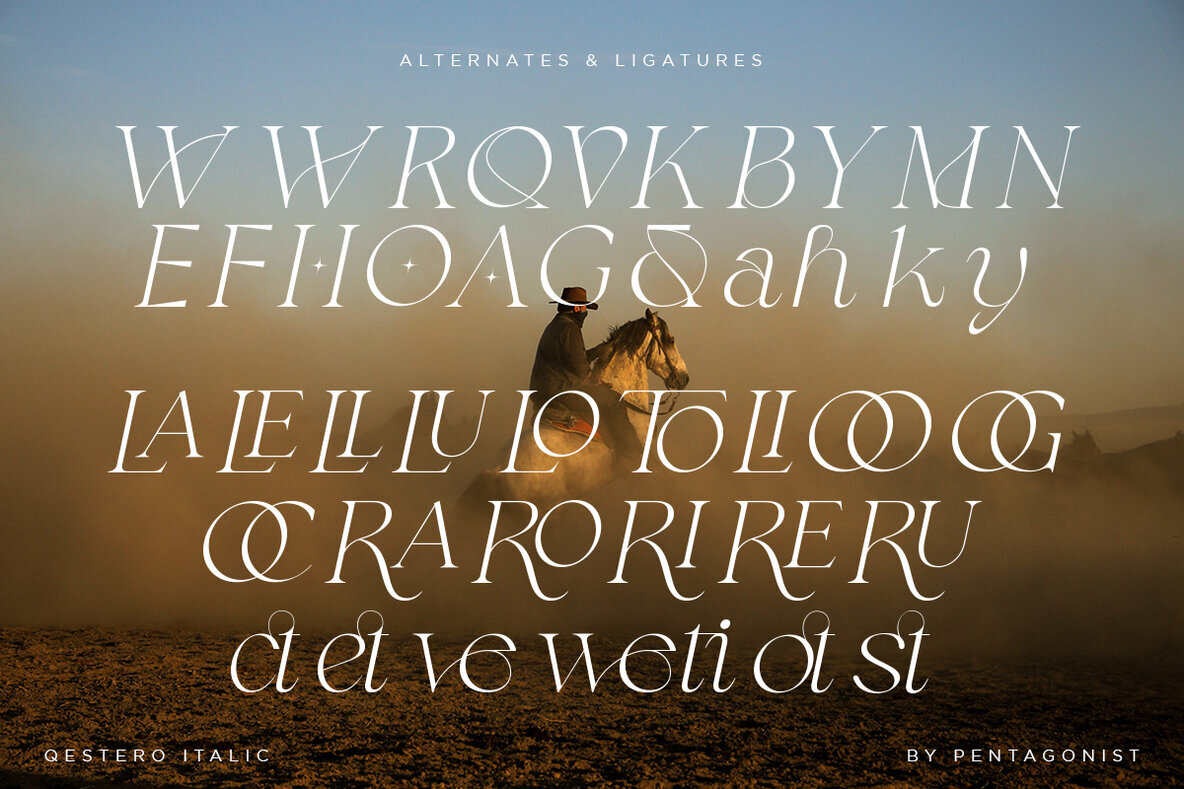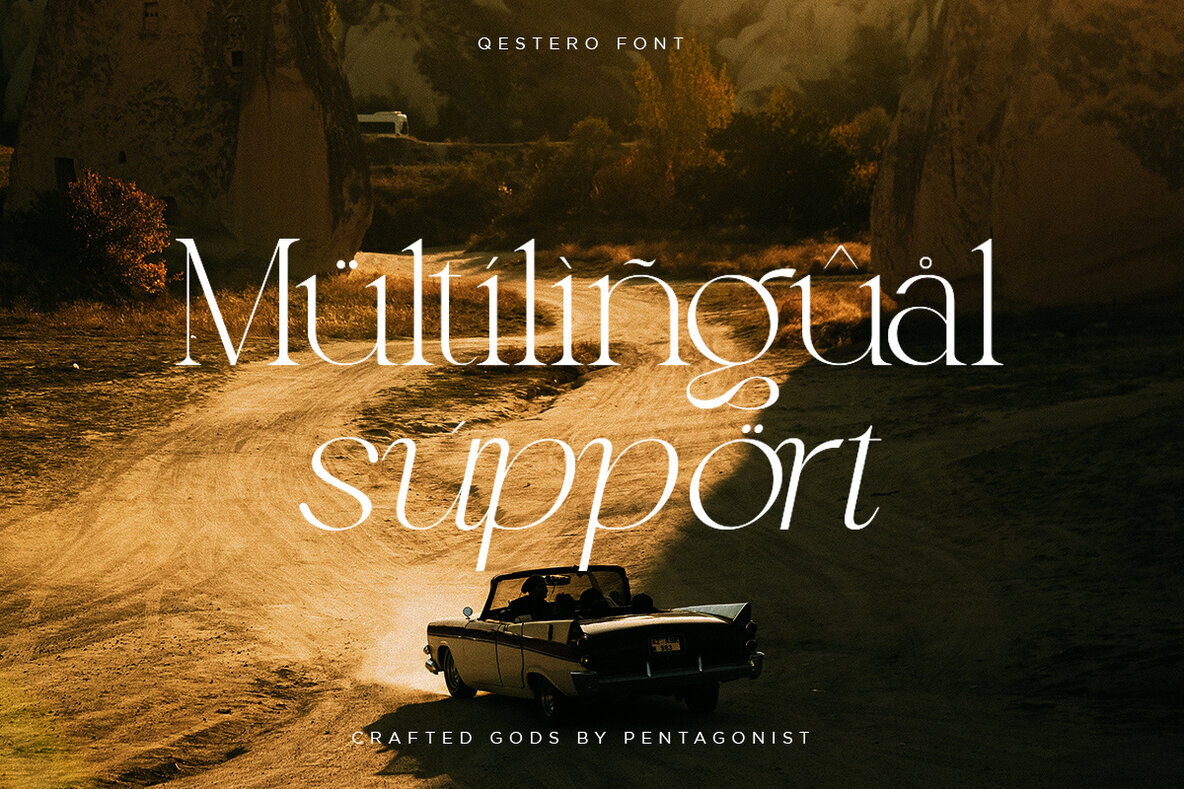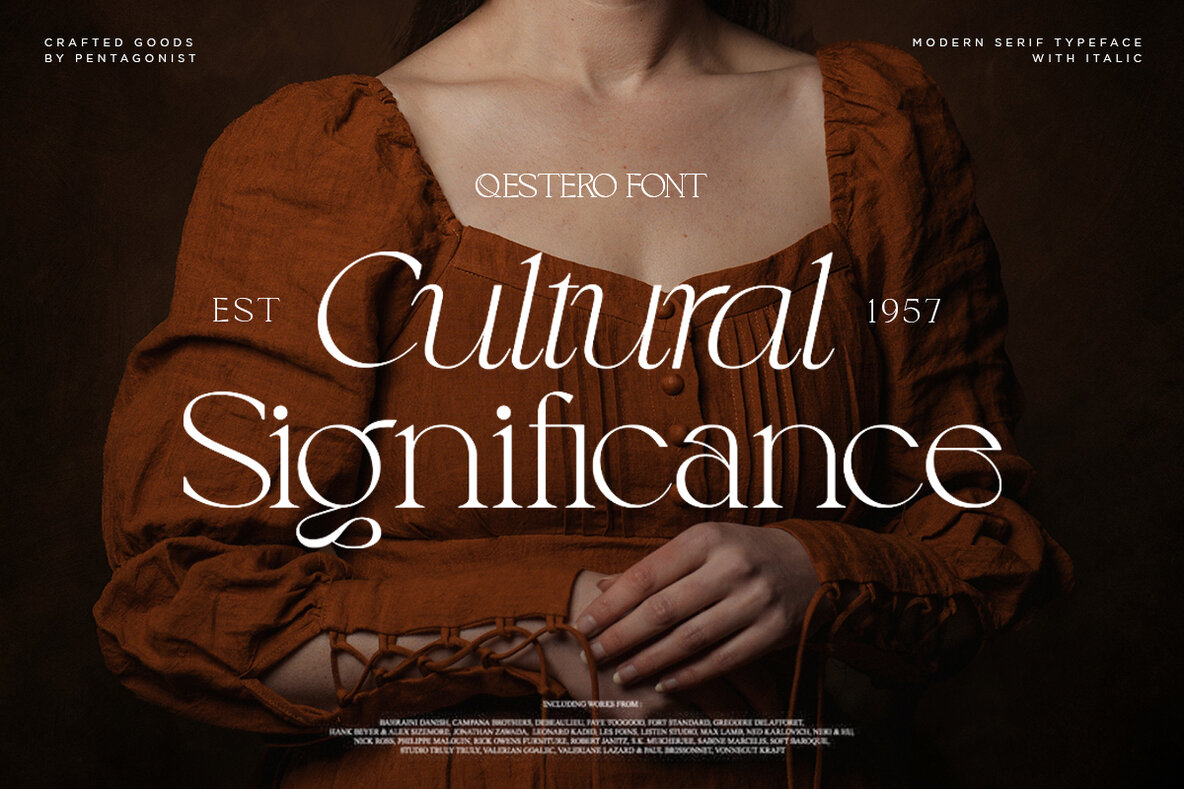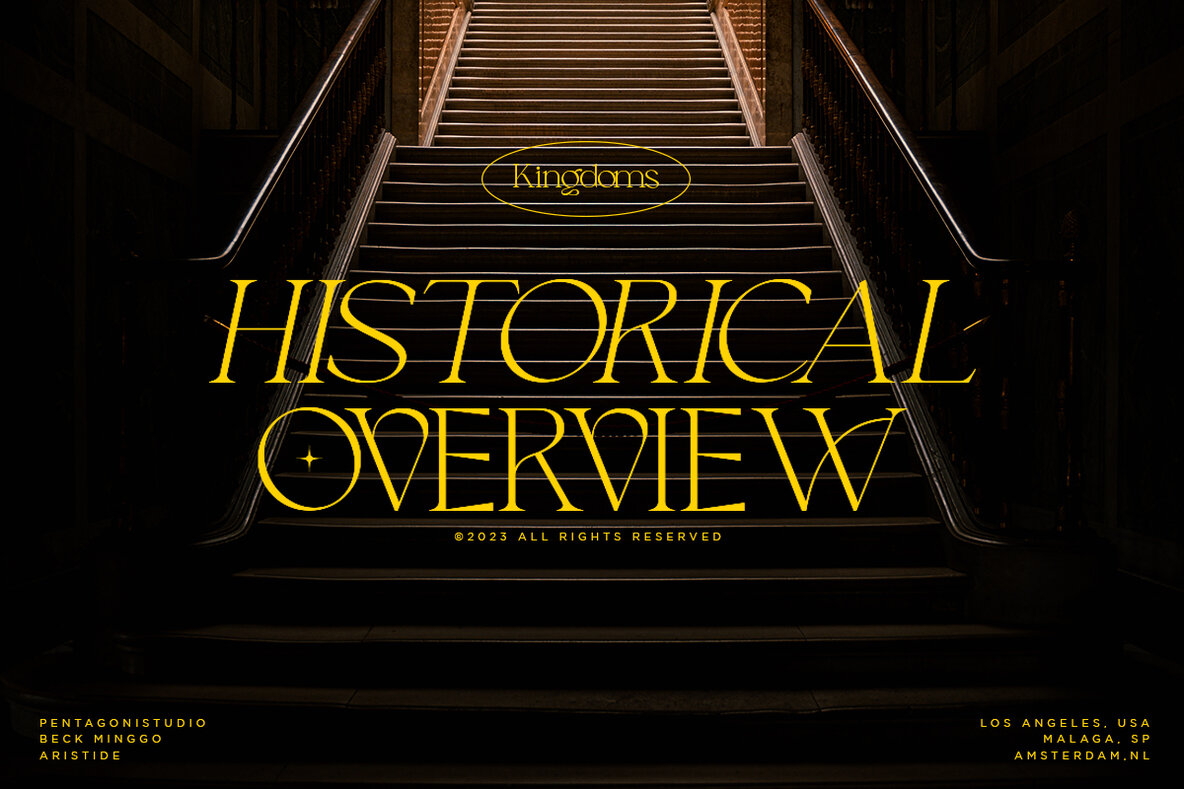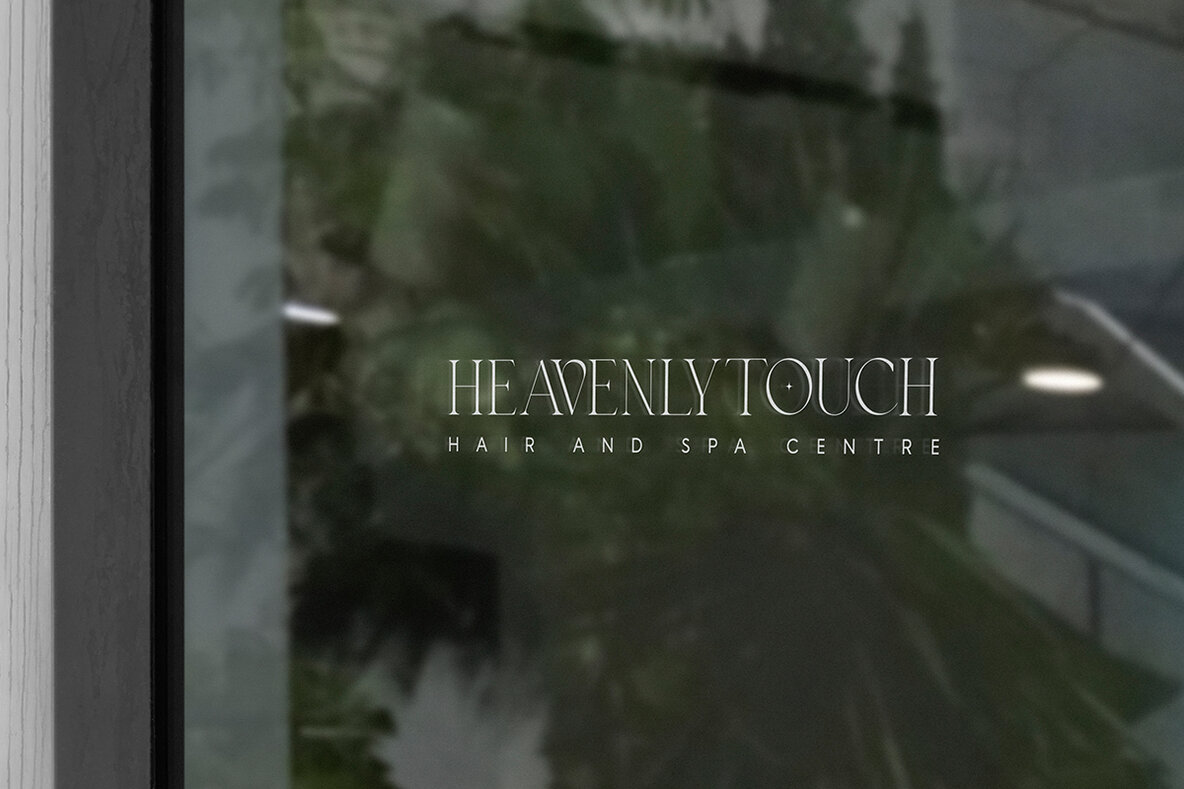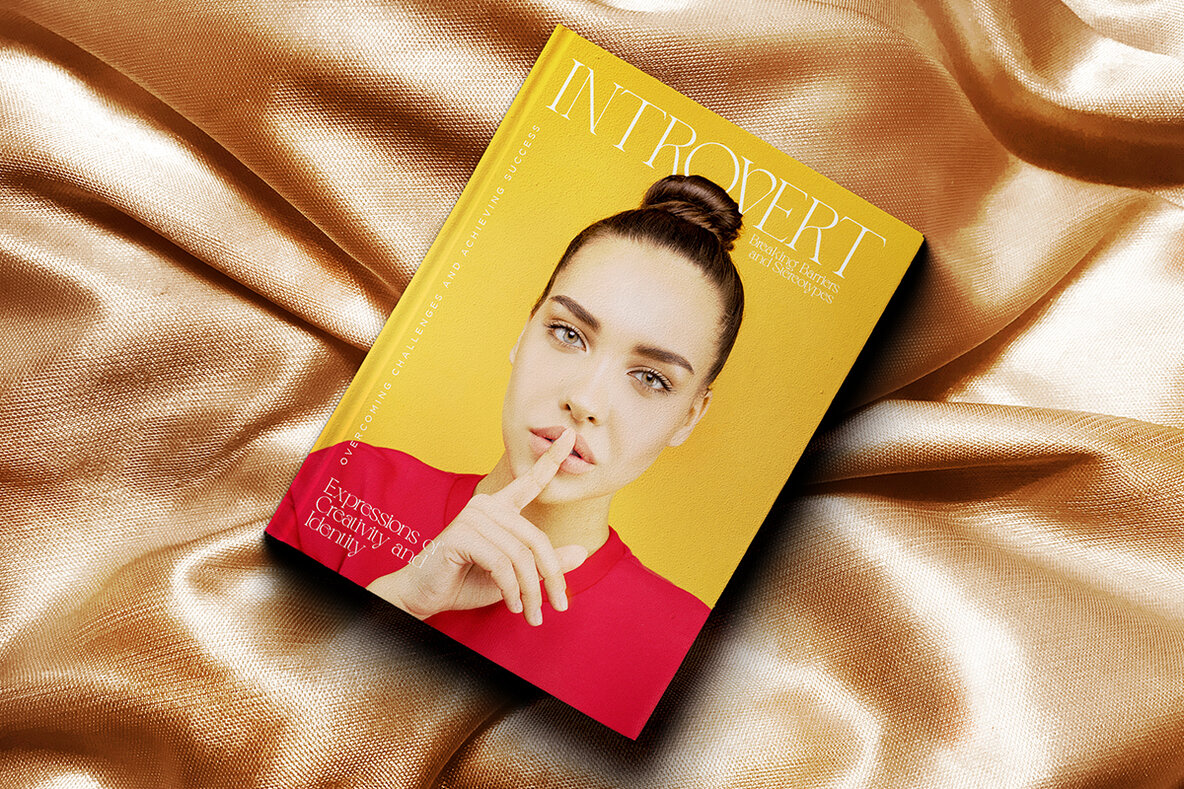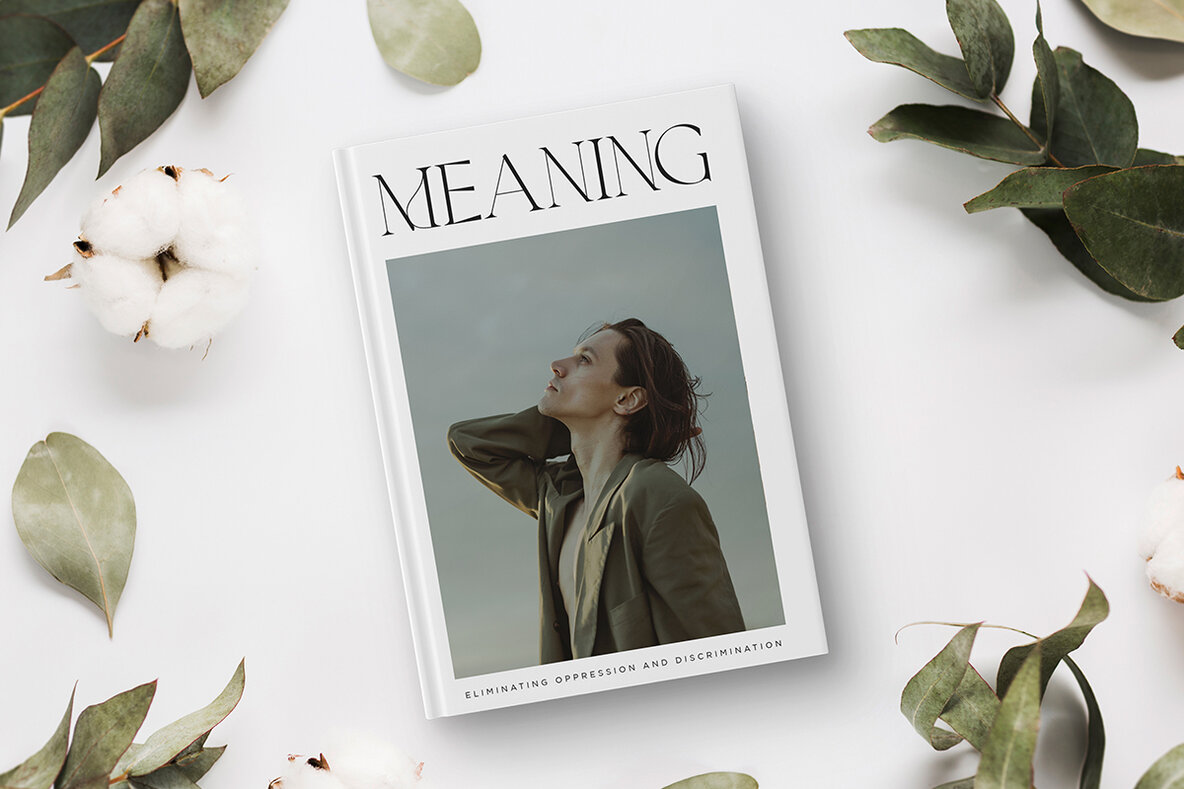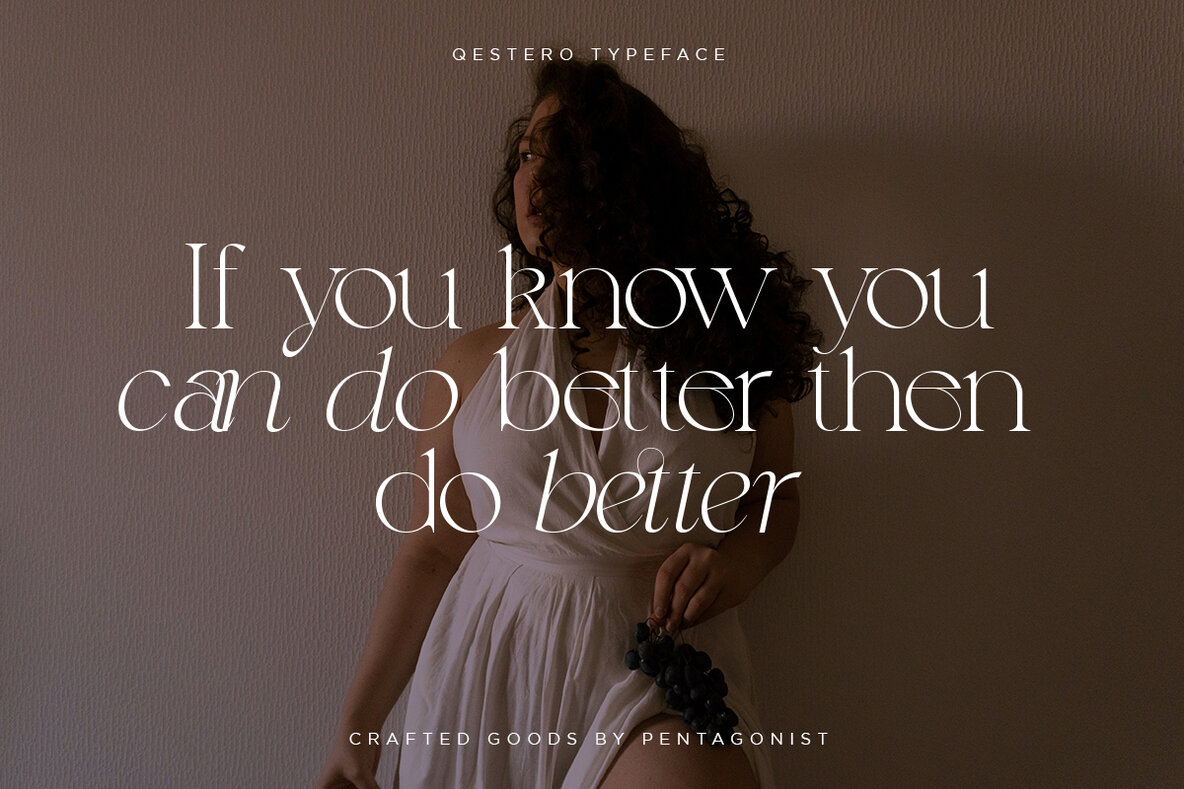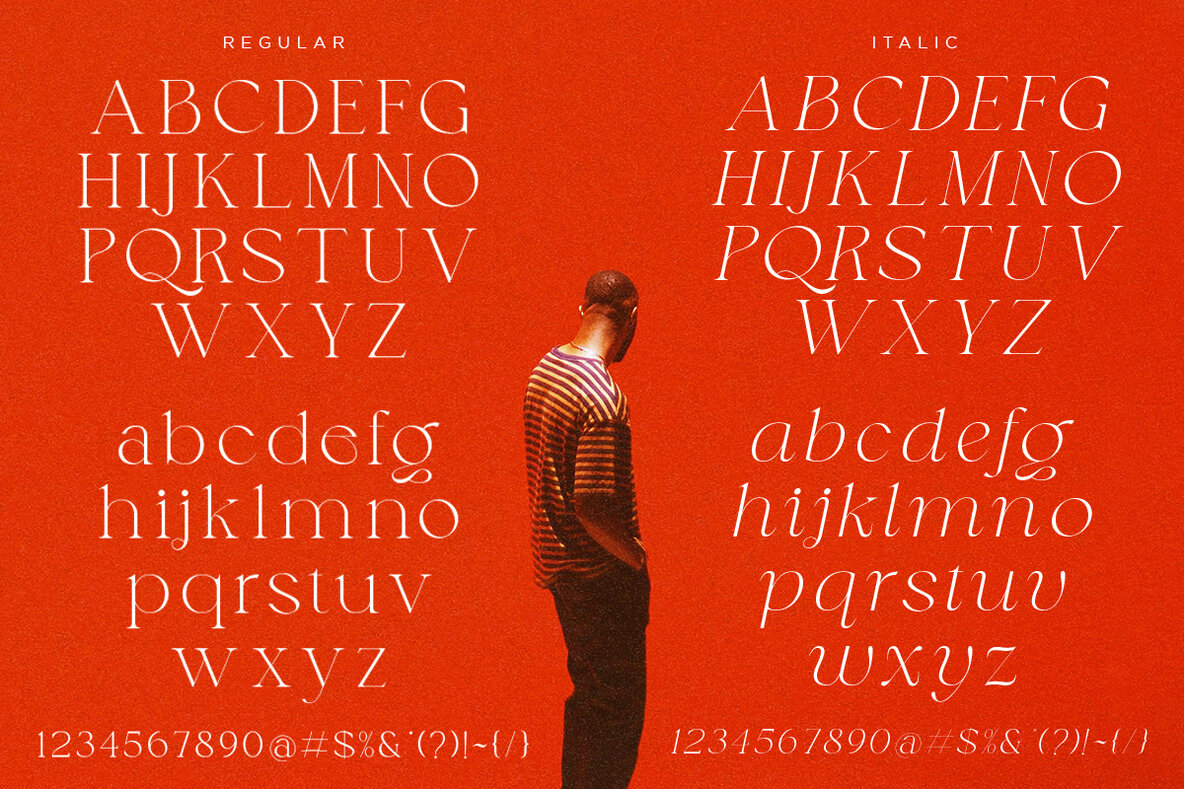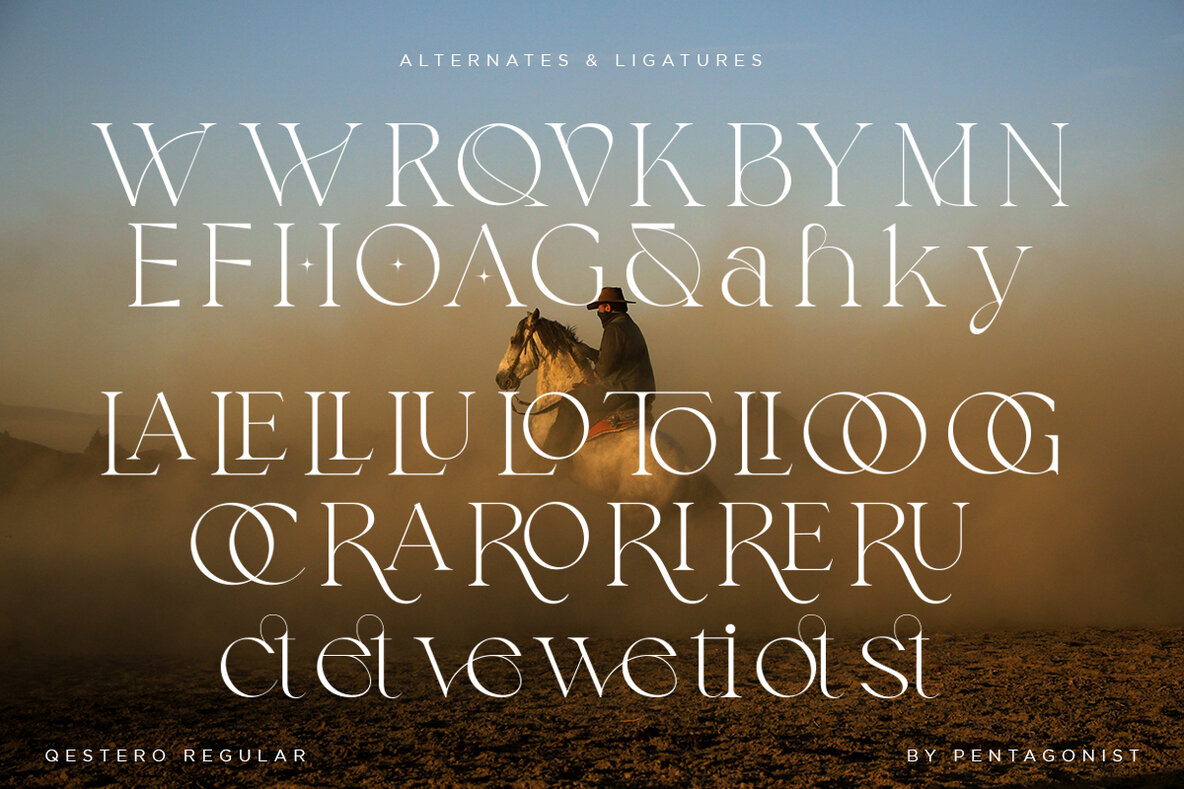
Qestero Font
Qestero font - the perfect choice for those who want to add a touch of exotic style to their designs. This modern display font is inspired by the sleek and sharp design of serif fonts, with a unique and elegant twist. The clean lines and sharp edges of Qestero font give it a sophisticated look that is perfect for creating bold and eye-catching designs.